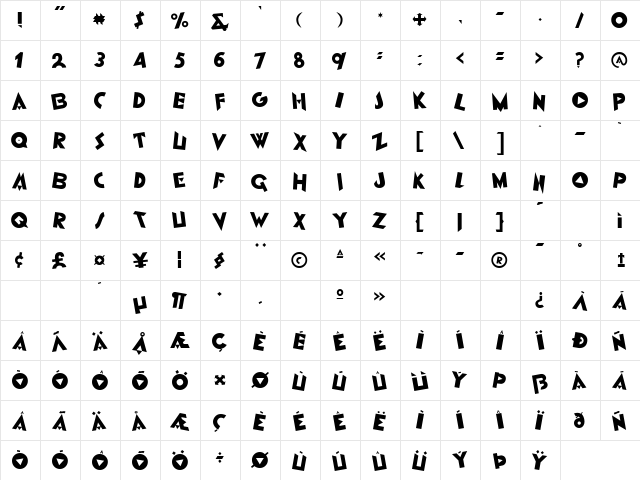
P22 Futurismo Velocita Regular
Design Context for P22 Futurismo Velocita Typeface
P22 Futurismo Velocita has a distinctly futuristic character, with geometric precision and clean angles that feel at home in technology, gaming, and sci-fi contexts.